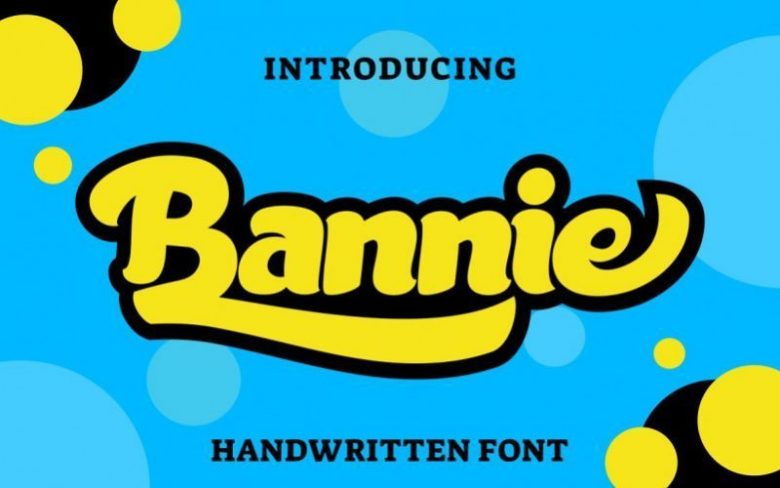
Bannie Handwritten Font
Bannie Inspired by Playful style and combination with Hand Lettering style.
Every single letters have been carefully crafted to make your text looks beautiful.